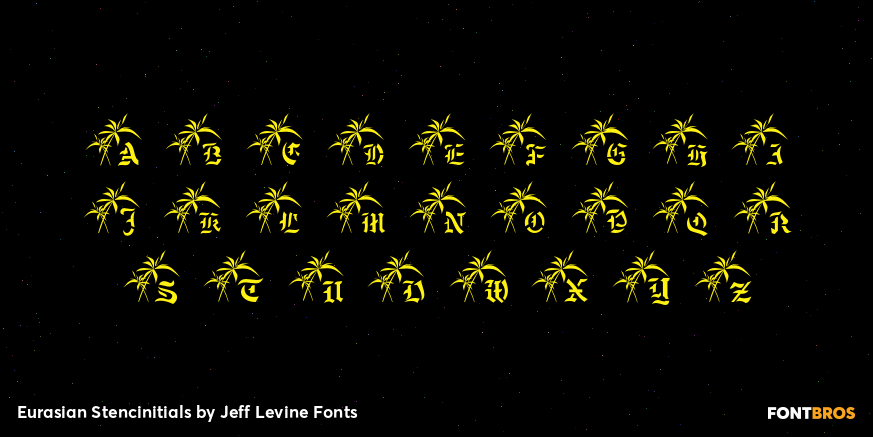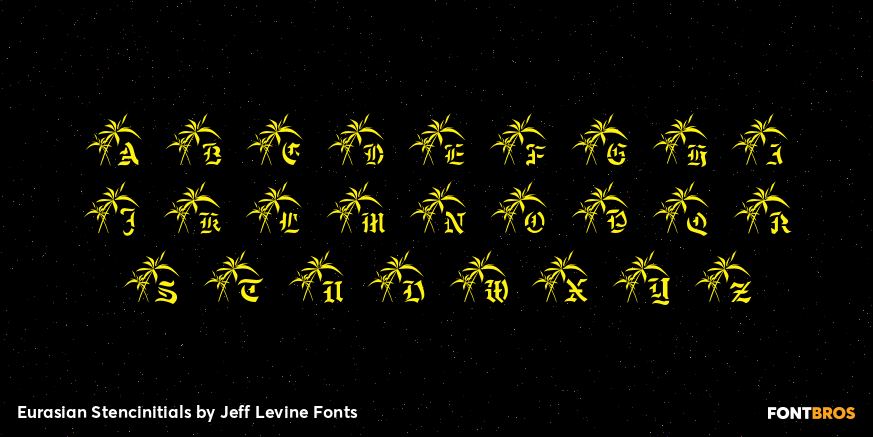
Eurasian Stencinitials
Eurasian Stencinitials JNL are modeled from a set of crudely die-cut Old English capital letter stencils that were made in Japan in the Early 1960s. The interesting treatment of the letters (with a slight hint of Japanese calligraphy) has some added bamboo plants for balance and decoration in this digital version.